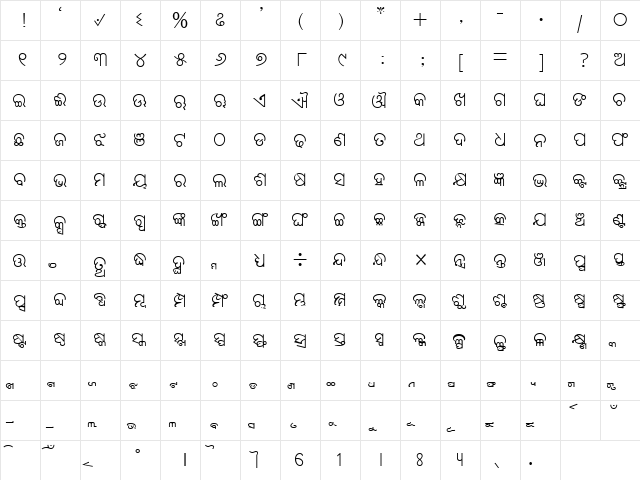
AkrutiOriAshok-99 Normal
Design Context for AkrutiOriAshok-99 Typeface
AkrutiOriAshok-99 is a composed and adaptable typeface that performs quietly and consistently across a wide range of design contexts.